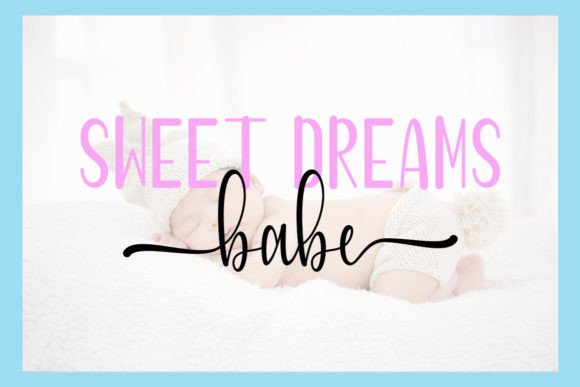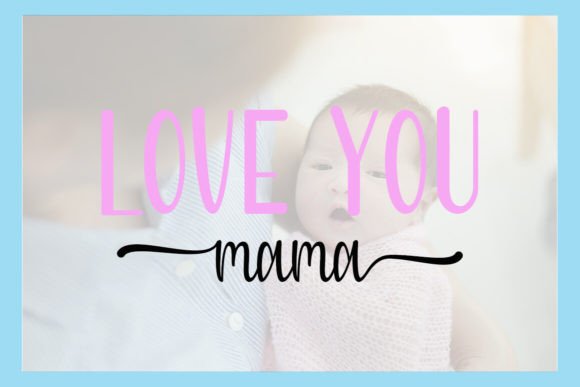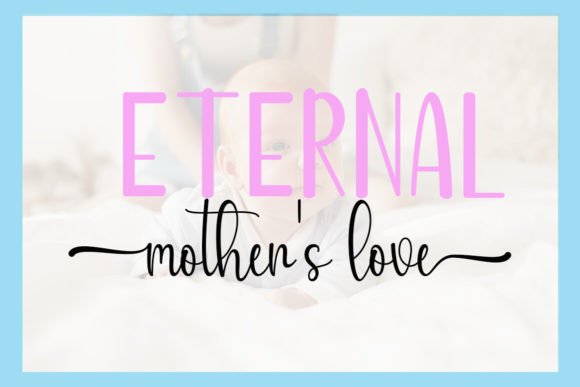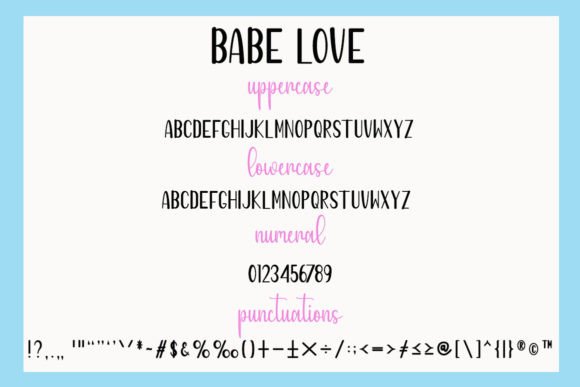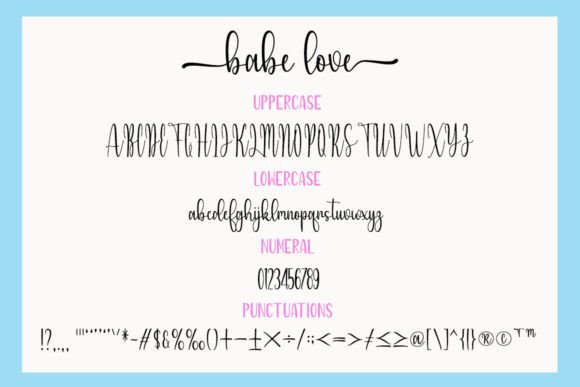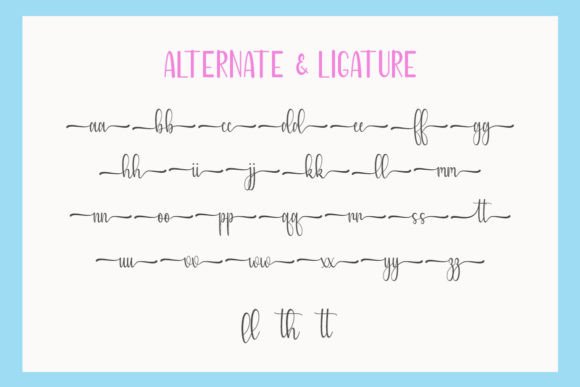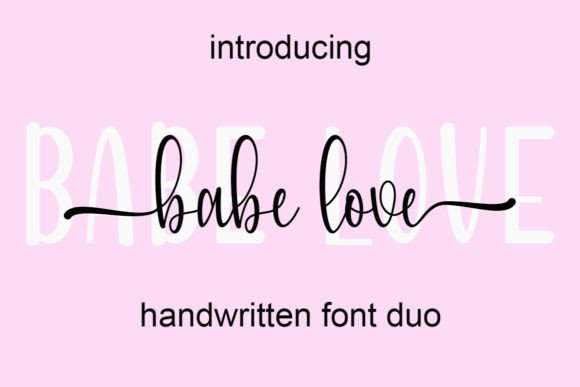
The Perfect Match for Your Creative Projects
You’ve spent hours brainstorming ideas, sketching out concepts, and pouring your heart into a design project. And then, it happens – you stumble upon the perfect font. The one that captures the essence of your vision and brings it to life. For designers like you, finding the right font can be the difference between a good design and a great one.
Meet the Babe Love Font, a lovely handwritten duo that’s sure to become your new go-to. With its well-rounded characters and stylish vibe, this font is perfect for adding a touch of warmth and personality to your creations. Whether you’re designing wedding invitations, greeting cards, or logos, the Babe Love Font is sure to inspire and delight.
Babe Love Font Key Features
- Font Family: Babe Love Font
- Unique Characteristics: A handwritten font with a modern and playful feel, featuring elegant lines and subtle flourishes
Babe Love Font Review
At first glance, the Babe Love Font seems like a fun and playful addition to any design project. ✨ The rounded edges and cursive script give it a whimsical feel that’s perfect for feminine or vintage-inspired designs. The font is highly customizable, allowing users to easily adjust the color, size, and style to fit their needs.
- Wide range of customization options
- Supports various font styles, including bold and italic
- Perfect for feminine or vintage-inspired designs
However, there are some limitations to consider. ⚠️ The font may not be suitable for modern or minimalist designs, as it can come across as too playful or cutesy. Additionally, the font may not render well in smaller sizes or on lower-resolution screens.
Overall, I think the Babe Love Font is a great addition to any designer’s toolkit. While it may not be suitable for every project, it’s a great option for designers looking to add a touch of whimsy or femininity to their designs. With a little creativity and experimentation, this font can be used to create some truly unique and eye-catching designs.
Tips for Getting the Most Out of the Babe Love Font
The Babe Love Font is perfect for creating feminine and elegant designs. To get the most out of it, try using it in combination with pastel colors and floral patterns.
Use the font in headings and titles to add a touch of sophistication, and use it in body text to add a personal touch.
The Babe Love Font is perfect for:
- Baby and bridal shower invitations
- Women’s fashion and beauty blogs
- Wedding and event planning websites
- Personalized gift tags and cards
Great Vibes Font is a modern, elegant script font perfect for adding a touch of sophistication to your designs. It’s ideal for use in headings, logos, and other high-impact areas where a beautiful, flowing script is desired.
Comparison to Babe Love Font: While Babe Love Font has a more playful, whimsical feel, Great Vibes Font is more refined and sophisticated. Great Vibes Font is a better choice when you want to convey a sense of elegance and luxury.
Carolyna Pro Font is a modern script font with a feminine touch, making it perfect for designs that require a touch of elegance and sophistication. It’s ideal for use in fashion, beauty, and lifestyle brands.
Comparison to Babe Love Font: Carolyna Pro Font has a more refined and elegant feel compared to Babe Love Font. Carolyna Pro Font is a better choice when you want to convey a sense of high-end style and sophistication.
Alex Brush Font is a beautiful, elegant script font perfect for adding a touch of sophistication to your designs. It’s ideal for use in headings, logos, and other high-impact areas where a beautiful, flowing script is desired.
Comparison to Babe Love Font: Alex Brush Font has a more refined and elegant feel compared to Babe Love Font. Alex Brush Font is a better choice when you want to convey a sense of elegance and sophistication, especially in designs that require a touch of luxury.